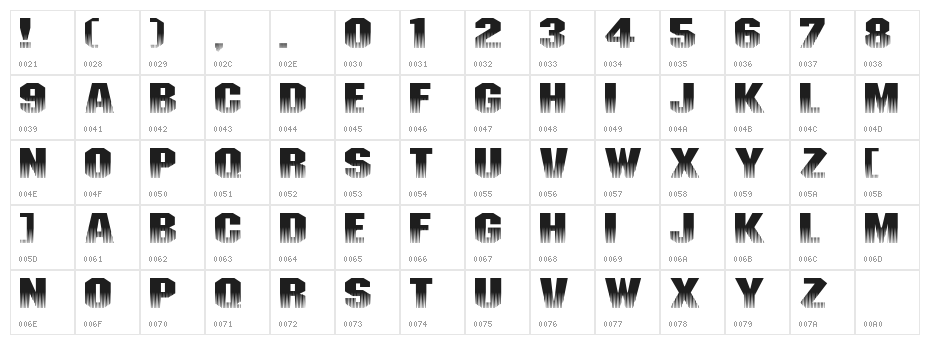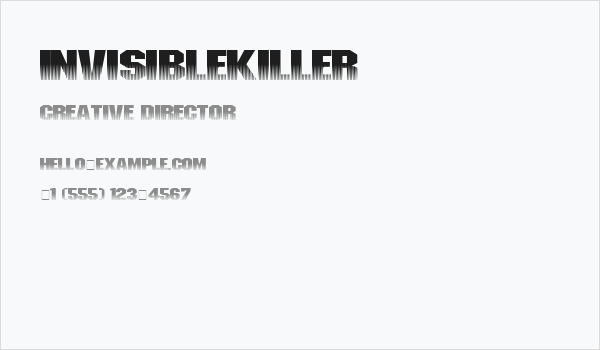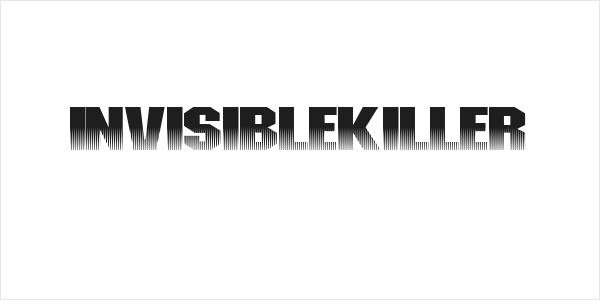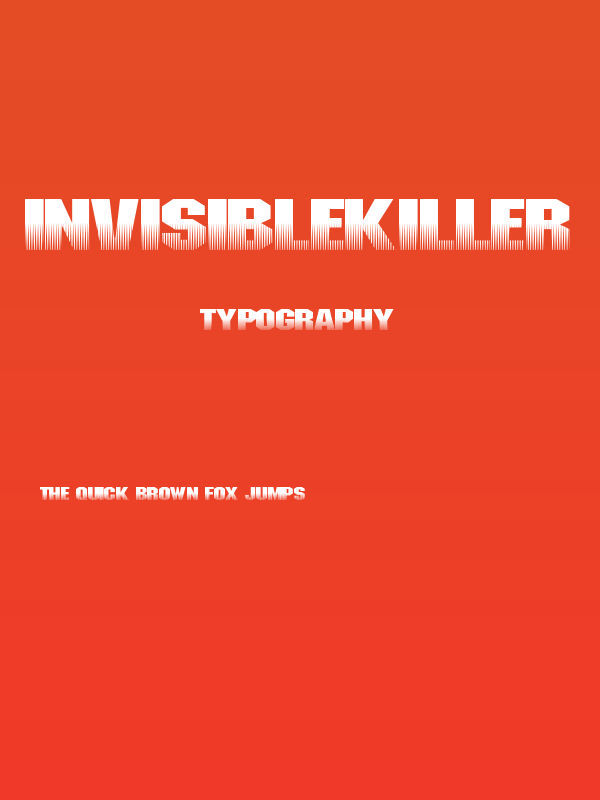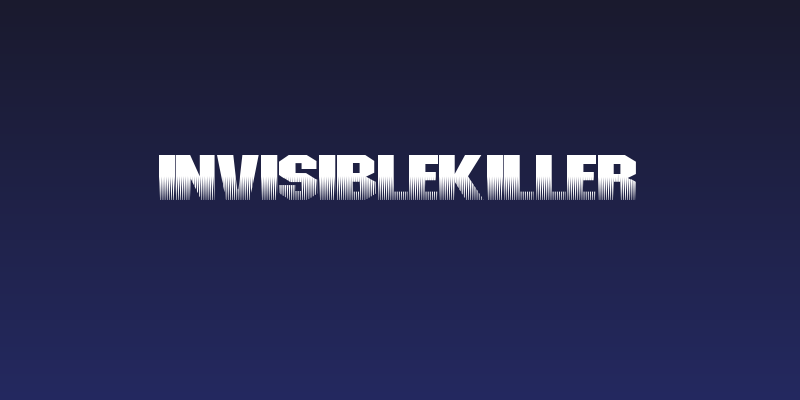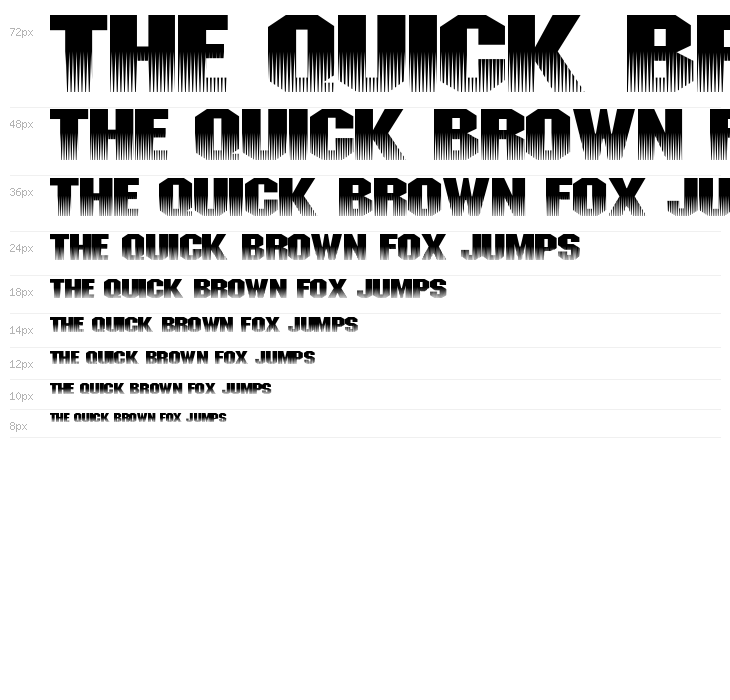
InvisibleKiller Font
InvisibleKiller Description
This font features a bold and dramatic style with a unique gradient effect that transitions from solid black at the top to a lighter shade at the bottom, creating a striking visual impact. The characters are wide and blocky, with a strong geometric influence that enhances their boldness. The uppercase and lowercase letters maintain a consistent width, contributing to a cohesive and uniform appearance. The numbers and special characters follow the same design principles, ensuring a harmonious look across all elements. This font is ideal for making a statement and capturing attention.
Proposed ProjectsIdeal for posters, headlines, branding, and any project requiring a bold, eye-catching typeface.